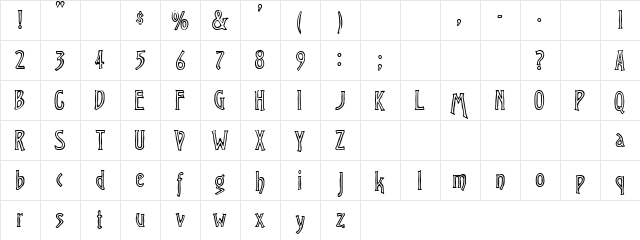
Immans Jwels Regular
Design Context for Immans Jwels Typeface
Immans Jwels is a composed and adaptable typeface that performs quietly and consistently across a wide range of design contexts.